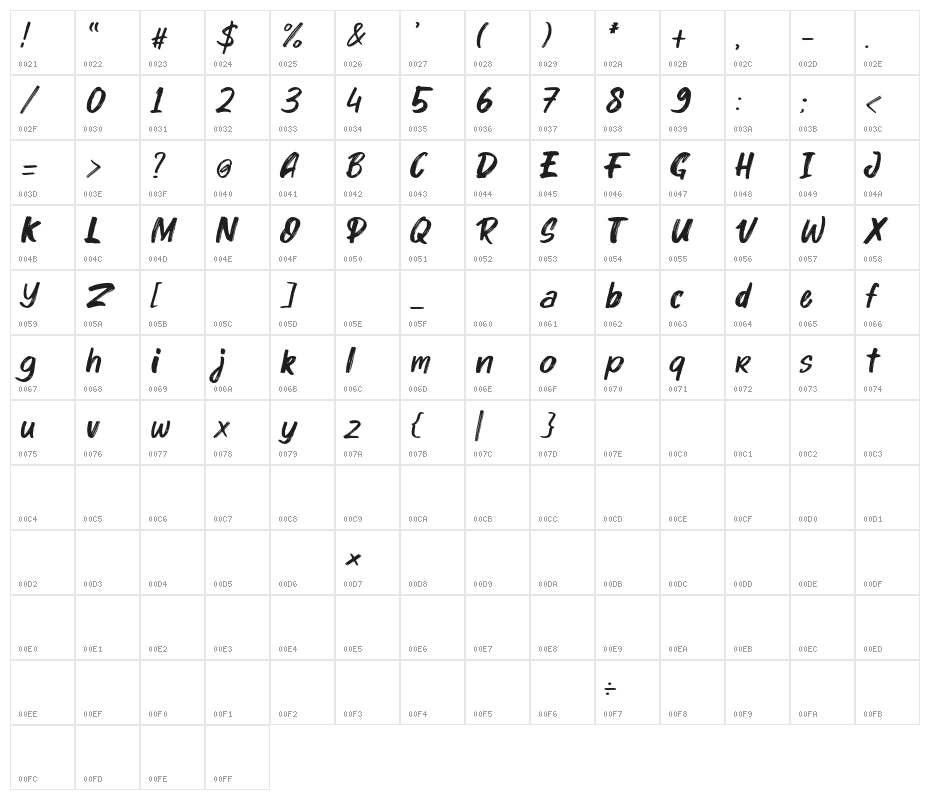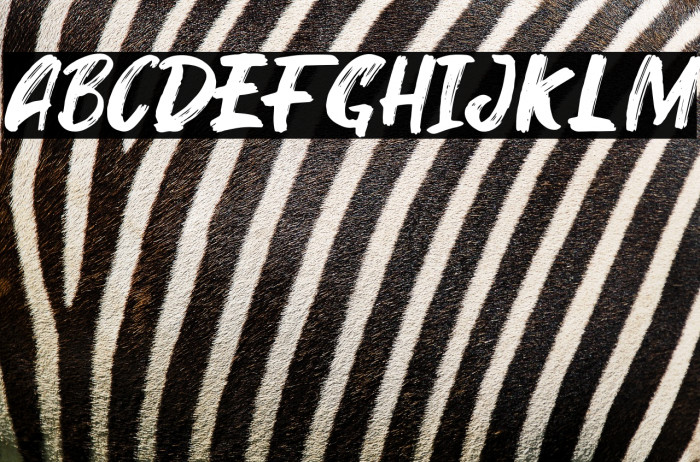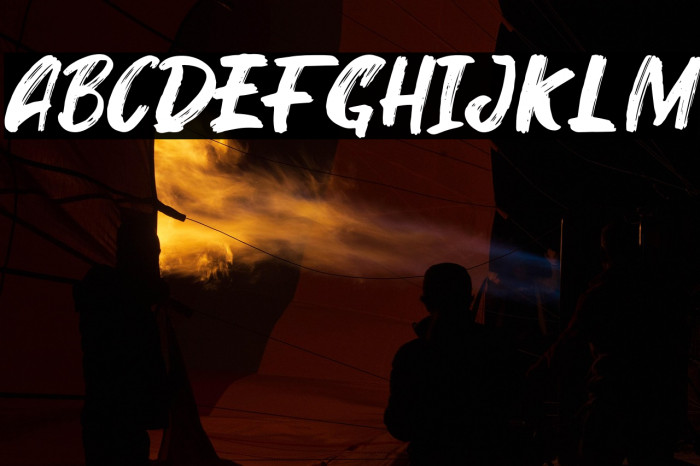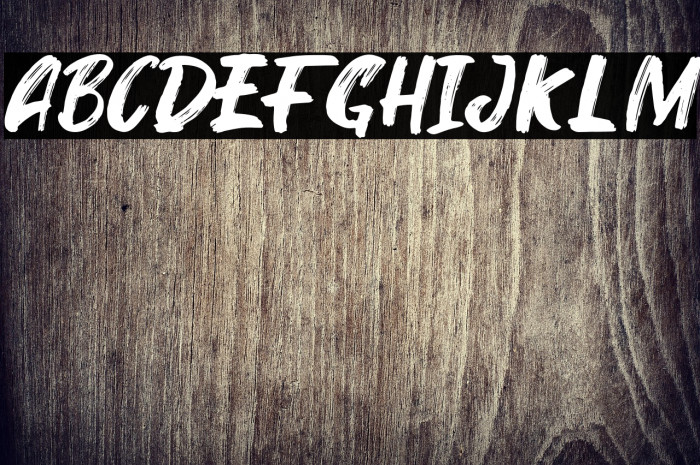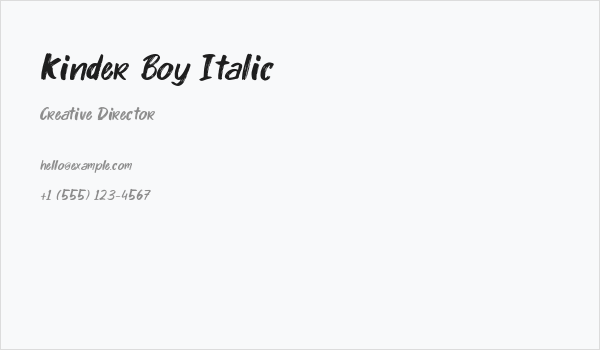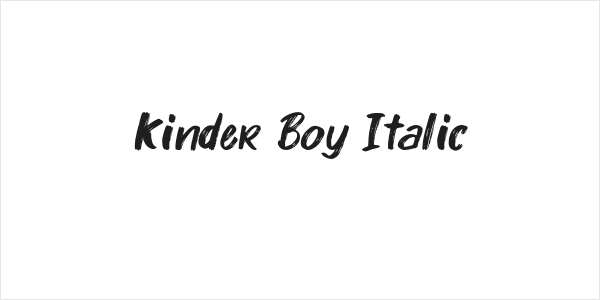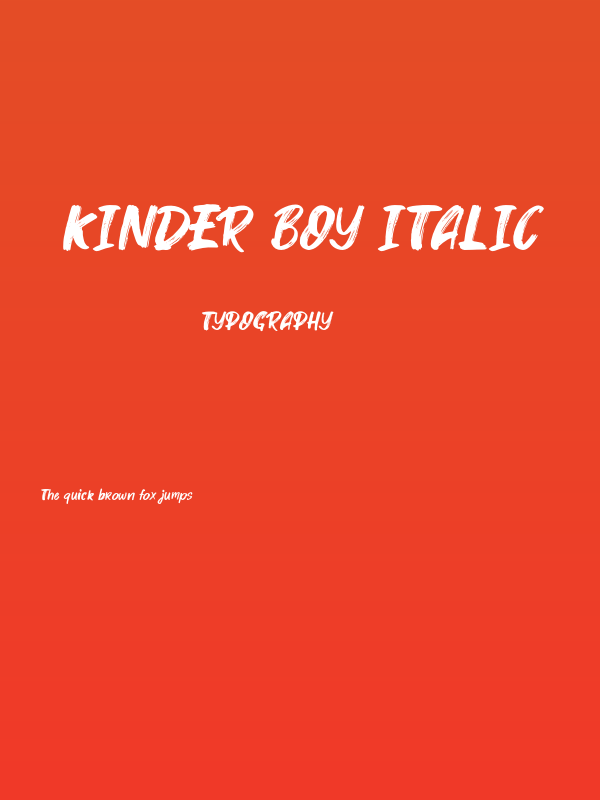
Kinder Boy Italic Font
Kinder Boy Italic Description
This font features a bold, expressive brush script style that exudes energy and dynamism. The strokes are thick and textured, giving a hand-painted appearance that adds a personal touch to any design. The characters are slightly slanted, enhancing the sense of movement and fluidity. Uppercase and lowercase letters are well-balanced, maintaining legibility while showcasing artistic flair. The numbers and special characters follow the same bold and textured style, ensuring consistency across all elements. This font is ideal for projects that require a lively and informal aesthetic.
| Proposed Projects | Ideal for branding, posters, social media graphics, and any design needing a lively, personal touch. |